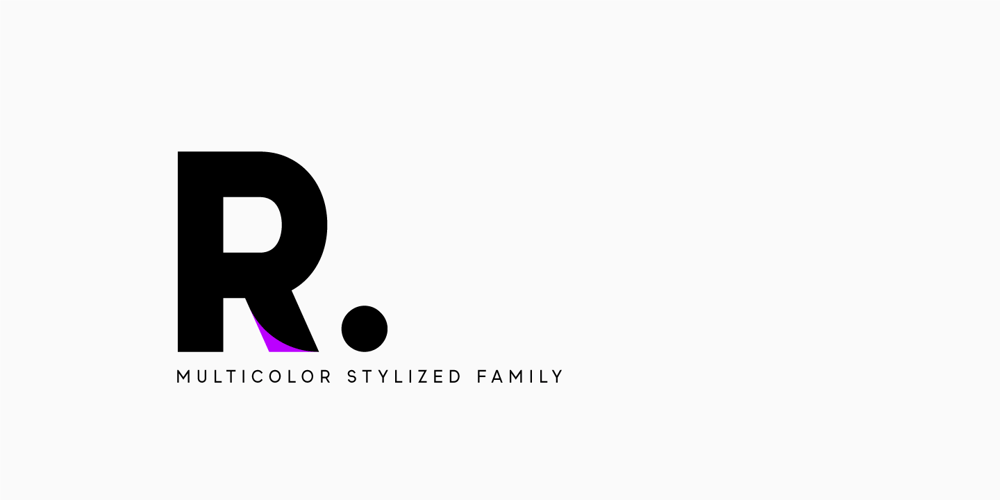
Miluero
Miluero font
Miluero Font Family was designed by Lauritta Ivanova and published by Luxfont. Miluero contains 13 styles and family package options. Introducing the stylized Miluero family. Graceful cut, rounded corners combined with austere shapes. Accent fonts with color padding and a classic basic monochrome version in the set. Perfect for logos, headlines and captions. Looks elegant in a minimalist modern design. An assortment of colors will help you get started quickly. This font family is based on the Regular font Pacardo – which means that if necessary you can combine these two families and they will be absolutely stylistically identical and complement each other.Check the quality before purchasing and try the FREE DEMO version of the font to make sure your software supports color fonts. P.s. Have suggestions for color combinations? Write me an email with the subject “Miluero Color” on: ld.luxfont@gmail.comFeatures:- Free Demo font to check it works.- Uppercase and lowercase the same size but different forms.- Color in letters.- Kerning.IMPORTANT: – Multicolor version of this font will show up only in apps that are compatible with color fonts, like Adobe Photoshop CC 2017.0.1 and above, Illustrator CC 2018. Learn more about color fonts & their support in third-party apps on www.colorfonts.wtf-Don’t worry about what you can’t see the preview of the font in the tab “Individual Styles” – all fonts are working and have passed technical inspection, but not displayed, they just because the website MyFonts is not yet able to show a preview of colored fonts. Then if you have software with support colored fonts – you can be sure that after installing fonts into the system you will be able to use them like every other classic font. Question/answer: How to install a font? The procedure for installing the font in the system has not changed. Install the font as you would install the classic fonts.How can I change the font color to my color? · Adobe Illustrator:Convert text to outline and easily change color to your taste as if you were repainting a simple vector shape. · Adobe Photoshop: You can easily repaint text layer with Layer effects and color overlay. ld.luxfont@gmail.com